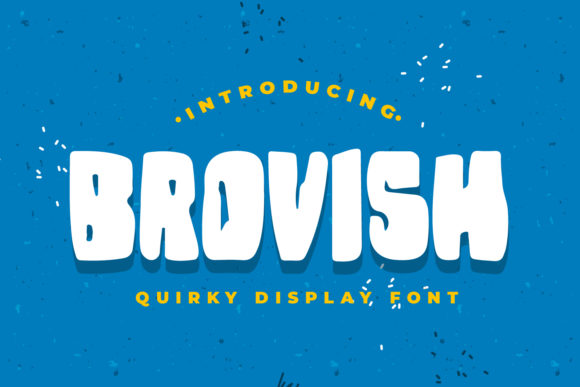
The Joy of Brovish Font: A Playful and Authentic Display Font
I’ll never forget the moment I stumbled upon the perfect font for a children’s activity project I was working on. I had been searching for what felt like hours, trying out font after font, but nothing seemed quite right. That was until I discovered Brovish Font. This cute and thick lettered display font embodies playfulness and authenticity, making it an instant favorite for any project that needs a touch of whimsy.
An Honest Review of Brovish Font
- ✨ Playful and fun: Brovish Font is perfect for children’s activities, school projects, or any design that needs a youthful touch.
- ✅ Easy to read: The thick lettering makes it easy to read, even at smaller sizes.
- 💕 Versatile: It can be used for headings, titles, or even short paragraphs.
While Brovish Font is an amazing display font, there are a few things to keep in mind:
- 🤔 Limited use for body text: Due to its bold and playful nature, Brovish Font might not be the best choice for longer blocks of text.
- ⚠️ Not suitable for formal designs: This font is meant for fun and creative projects, so it’s not the best fit for formal or professional designs.
The Backstory of Brovish Font
Brovish Font was designed with the intention of creating a playful and authentic display font. The designer aimed to craft a font that would be perfect for children’s activities, school projects, and other creative endeavors. With its thick lettering and whimsical feel, Brovish Font has become a favorite among designers and crafters alike.
Q: What is Brovish Font best used for?
A: Brovish Font is best used for children’s activities, school projects, and other creative endeavors that require a playful and authentic touch.